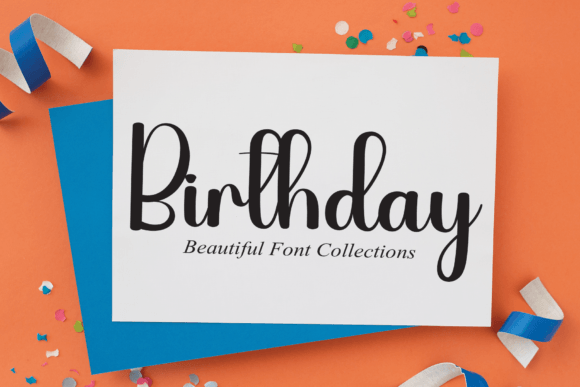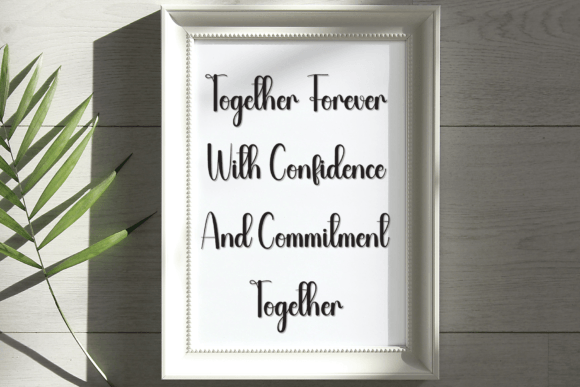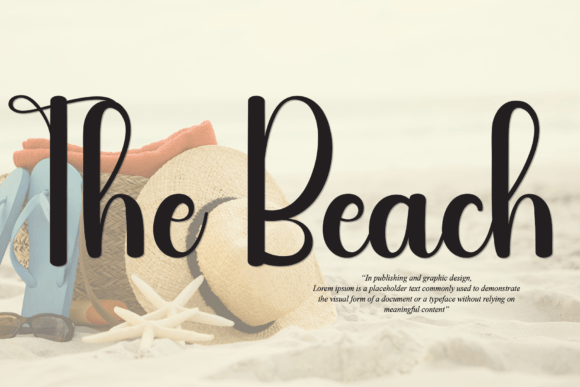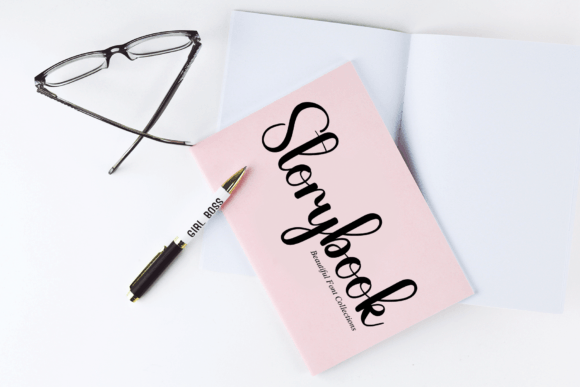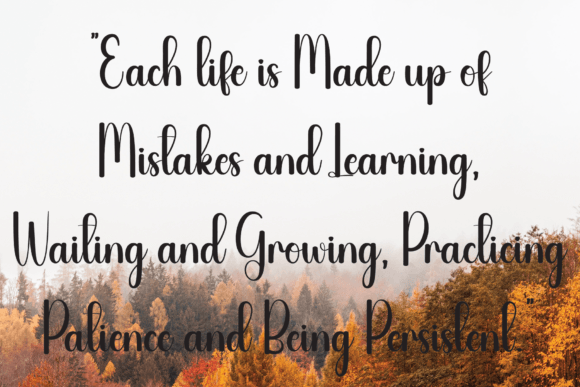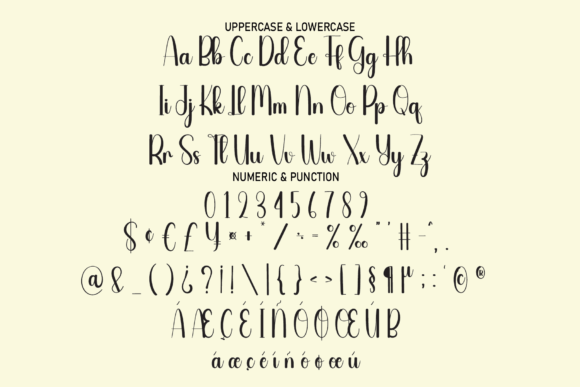
Introduction to Lightrays Font
Lightrays is a romantic and sweet calligraphy typeface with characters that dance along the baseline.
It will add a luxury spark to any design project that you wish to create .
Key Features of Lightrays Font